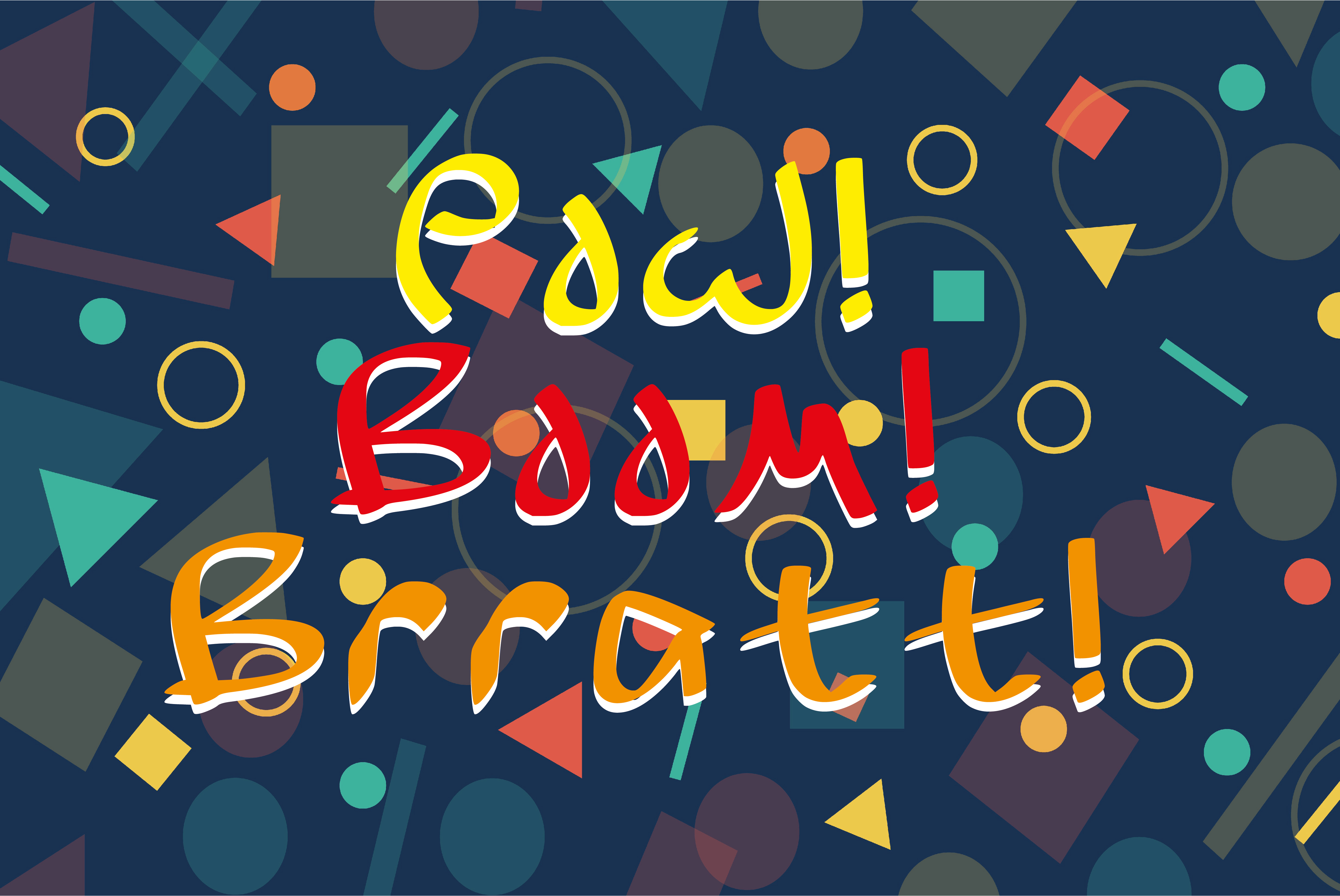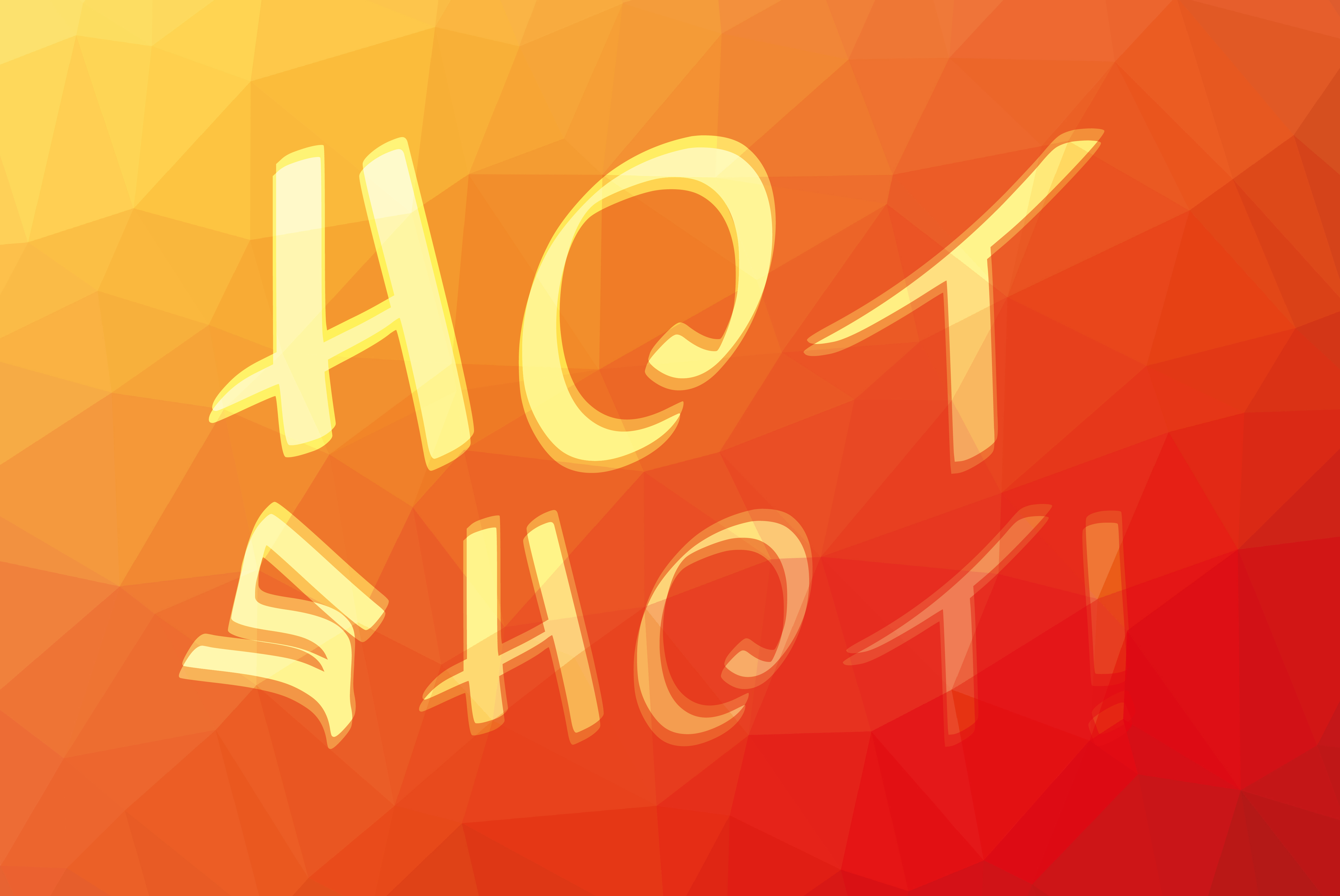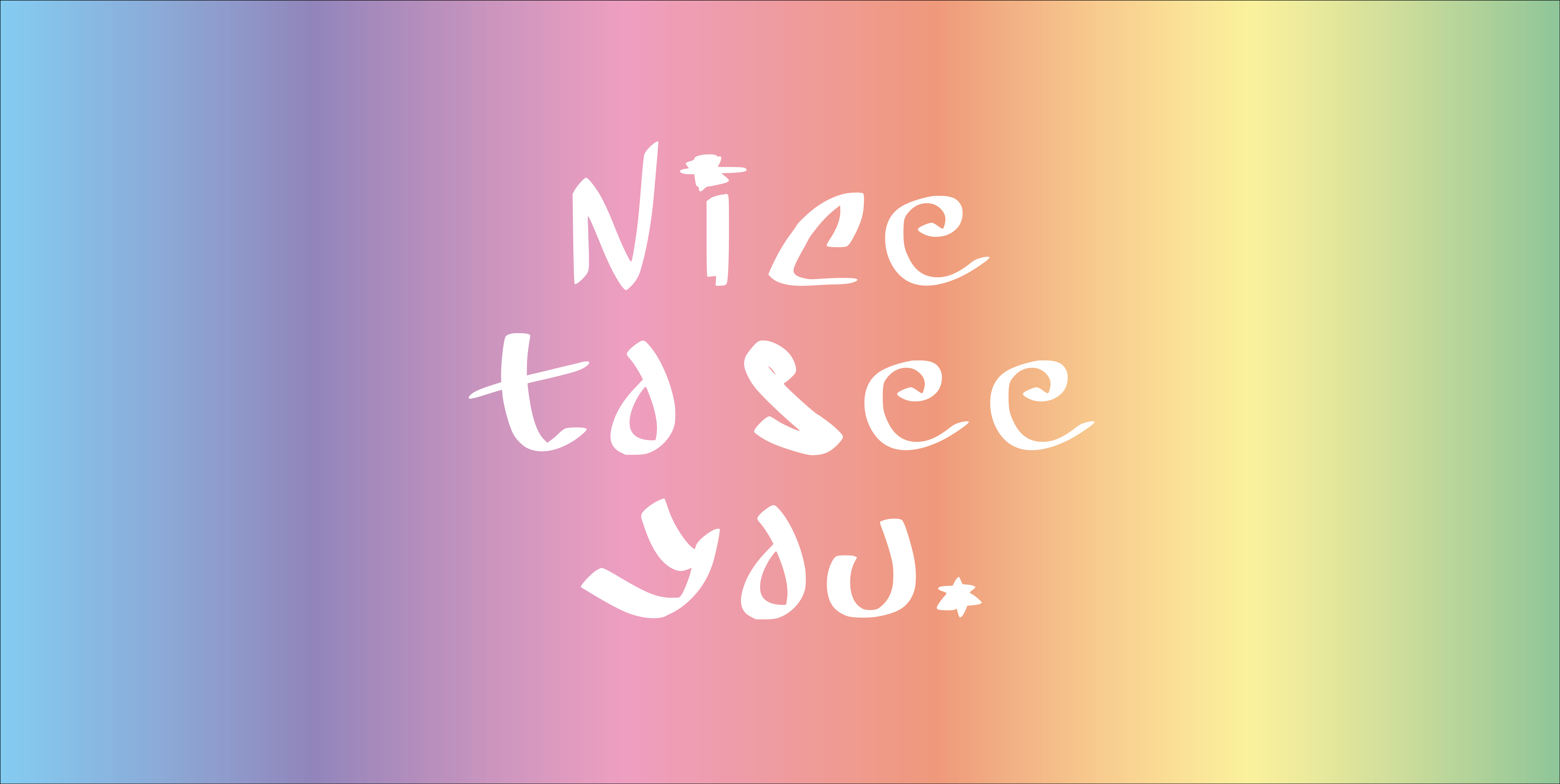
Introducing the Dope Bam Font: A Graffiti-Inspired Masterpiece
“Yo yo yo, check it out , this right here is a thick nibbled marker pen type font inspired by graffiti and tagging, a font with street attitude. ‘Nuff said… Peace!” These words perfectly capture the essence of the Dope Bam Font, a unique and bold typeface that is sure to make a statement in any design project.
The Inspiration Behind Dope Bam Font
The Dope Bam Font is inspired by the vibrant and dynamic world of graffiti and tagging. Graffiti has long been a form of self-expression and artistic rebellion, allowing individuals to leave their mark on the urban landscape. The font takes its cues from the thick, bold lines and rugged texture of marker pen graffiti, giving it a raw, unbridled energy.
Key Features of the Dope Bam Font
So, what sets the Dope Bam Font apart from other typefaces? Here are a few key features:
• Thick, nibbled lines: The font features thick, nibbled lines that give it a rough, handmade feel.
• Street attitude: The Dope Bam Font exudes a confident, in-your-face attitude that is perfect for designs that need to make a bold statement.
• Graffiti-inspired: The font’s graffiti inspiration gives it a unique, edgy feel that is sure to appeal to designers who want to add a touch of urban grit to their work.
Uses for the Dope Bam Font
The Dope Bam Font is a versatile typeface that can be used in a wide range of design projects, from:
• Streetwear branding: The font’s bold, graffiti-inspired style makes it perfect for streetwear brands that want to make a statement.
• Poster design: The Dope Bam Font is ideal for poster design, adding a touch of urban grit to any message or image.
• Social media graphics: The font’s bold, attention-grabbing style makes it perfect for social media graphics, from Instagram posts to Facebook headers.
• Merchandise design: The Dope Bam Font is a great choice for merchandise design, adding a touch of edgy style to t-shirts, hats, and other items.
Tips for Using the Dope Bam Font
Here are a few tips for getting the most out of the Dope Bam Font:
• Use it boldly: The Dope Bam Font is all about making a statement, so don’t be afraid to use it boldly and prominently in your designs.
• Experiment with colors: The font’s graffiti inspiration means it looks great in bold, bright colors. Experiment with different color schemes to find the one that works best for your design.
• Pair it with contrasting fonts: The Dope Bam Font is a bold, attention-grabbing typeface. Pair it with contrasting fonts to create visual interest and add depth to your design.
The Dope Bam Font is a unique and powerful typeface that is sure to add a touch of urban grit to any design project. With its thick, nibbled lines and graffiti inspiration, it’s the perfect choice for designers who want to make a bold statement. So why not give it a try and see what kind of creative possibilities it opens up?